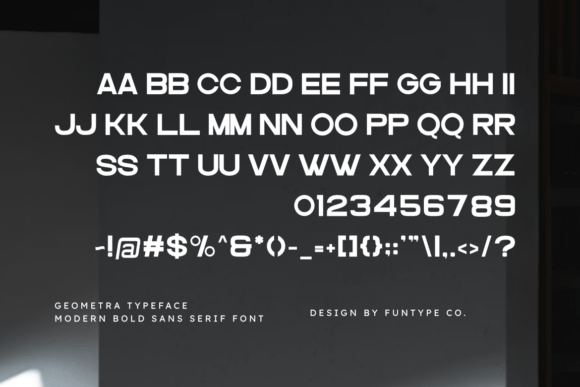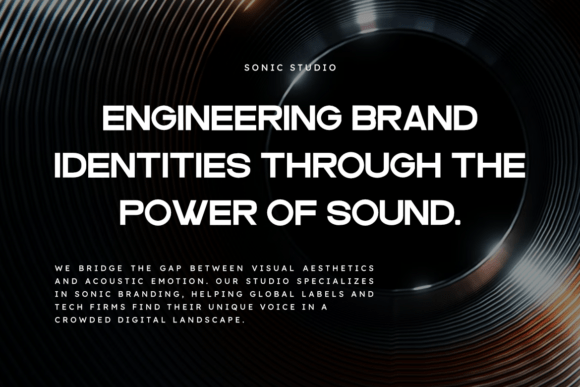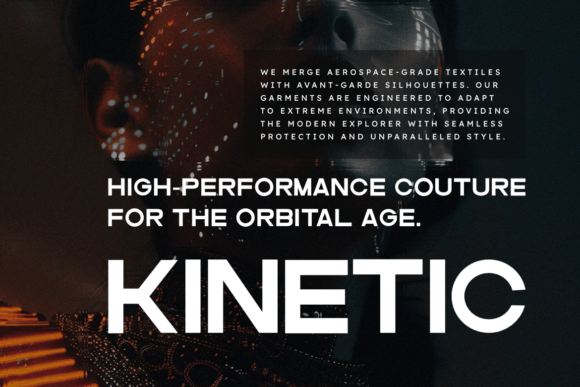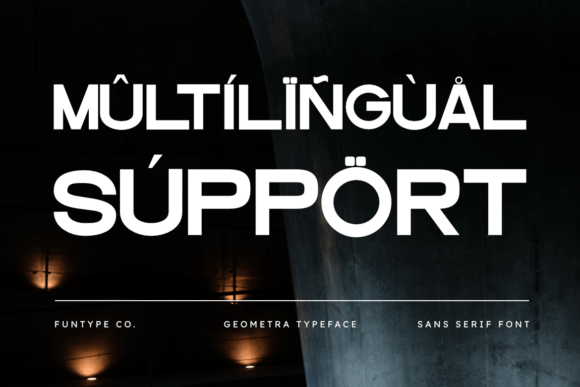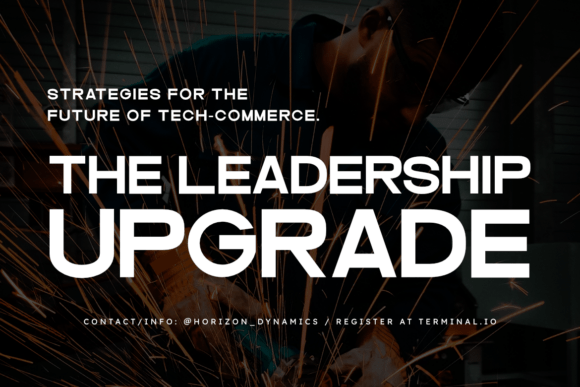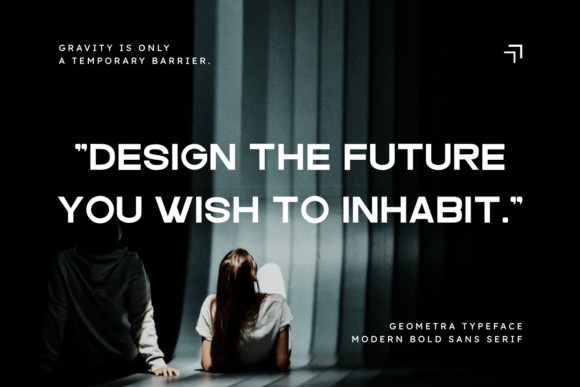
The Perfect Blend of Power and Precision: Geometra Font
As designers, we’ve all been there – staring at a blank canvas, desperately searching for the perfect font to bring our vision to life. The search is over. Geometra Font is here to revolutionize the world of typography, offering a bold and powerful sans serif design that’s perfect for making a statement.
Geometra Font is a masterclass in precision typography, boasting a refined geometric structure and clean, solid lines that exude confidence and professionalism. Whether you’re crafting a strong headline, designing a logo, or creating high-impact digital posters, this font is the ultimate tool in your arsenal. Its versatility and advanced design make it a valuable asset for designers, elevating your visuals to the next level.
Geometra Font Key Features
- Font Family: Geometra Font is a modern sans-serif font family designed for digital use.
- Unique Characteristics: Geometra Font features a geometric-inspired design with clean lines, precise shapes, and a high x-height, making it suitable for various digital applications.
Designer Review: Geometra Font
As a designer, I’m always on the lookout for unique and versatile fonts that can elevate my projects. Geometra Font caught my attention, and I decided to give it a try.
- Geometric charm**: Geometra Font brings a geometric twist to the classic sans-serif style, making it perfect for modern designs.
- Legibility**: The font is highly legible, even at small sizes, which is a must for any font I use.
- Character set**: Geometra Font includes a wide range of characters, including ligatures and numerals, making it suitable for various languages.
- Stiff feel**: At times, the font can feel a bit stiff and rigid, which might not be suitable for designs that require a more playful feel.
- Not ideal for body text**: While Geometra Font is great for headings and titles, it might not be the best choice for body text due to its geometric nature.
Overall impression
Overall, I think Geometra Font is a great addition to any designer’s toolkit. While it may have some limitations, its unique charm and versatility make it a great choice for modern designs. If you’re looking for a font that can add a touch of sophistication and elegance to your projects, Geometra Font is definitely worth considering.
Tips for Getting the Most Out of Geometra Font
Geometra Font is a modern and sleek font that works well for a variety of designs. To get the most out of it, try using it for headings and titles, as well as for body text in creative projects. You can also experiment with different font sizes and colors to add visual interest.
Geometra Font is commonly used for:
1. Creative projects, such as posters, flyers, and brochures.
2. Branding and marketing materials, such as logos and business cards.
3. Digital products, such as ebooks and presentations.
Alternatives to Geometra Font
Montserrat is a modern sans-serif font, ideal for digital interfaces, branding, and editorials. It has a strong geometric feel and is highly legible, making it a popular choice among designers. Compared to Geometra Font, Montserrat has a more extensive character set and a wider range of weights.
Inter is a clean and minimalist sans-serif font, designed for digital use. It’s highly legible and suitable for body text, titles, and headings. Compared to Geometra Font, Inter has a more neutral aesthetic and is optimized for on-screen reading.
Open Sans is a popular sans-serif font, known for its clean and modern design. It’s highly legible and suitable for a wide range of applications, from body text to titles and headings. Compared to Geometra Font, Open Sans has a more rounded feel and a wider range of weights.
Avenir is a geometric sans-serif font, designed for print and digital use. It has a strong, modern feel and is highly legible, making it a popular choice among designers. Compared to Geometra Font, Avenir has a more angular aesthetic and a narrower range of weights.
Yes, the Geometra Font is optimized for digital use, including web, mobile, and print applications. The font is designed to be clear and readable at various resolutions and screen sizes. It also supports Unicode characters, ensuring that it works well with languages that use non-Latin scripts.